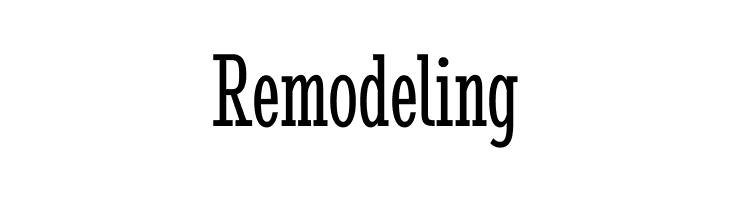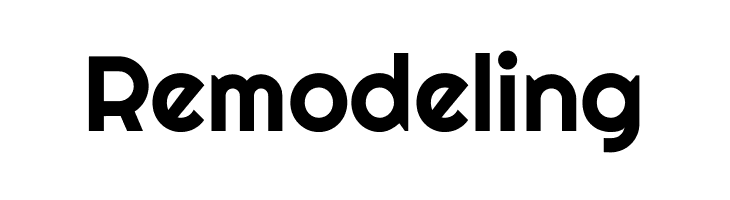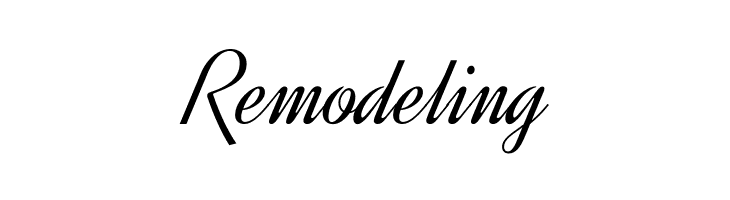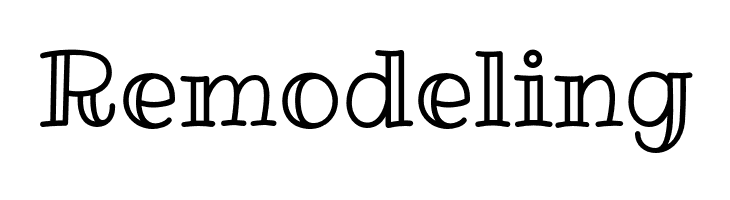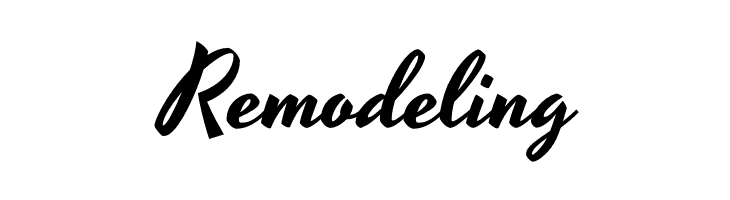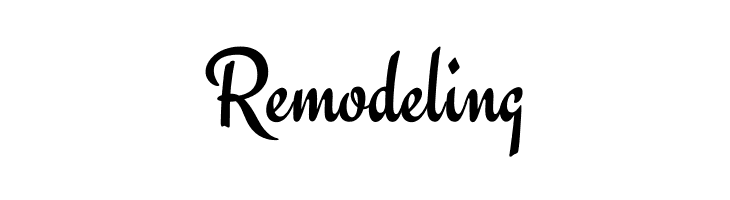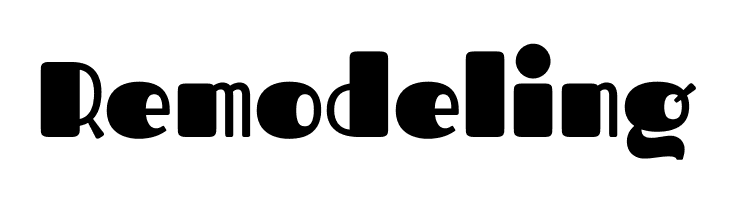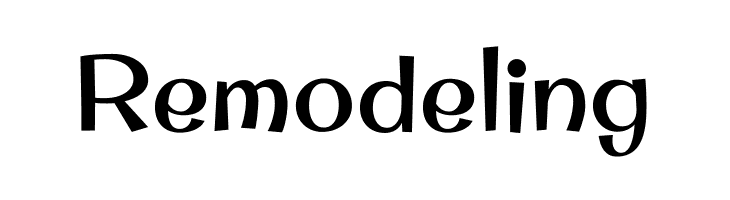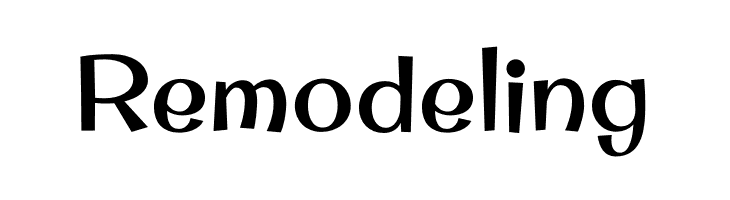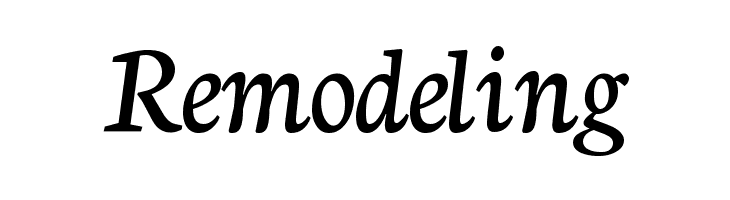
A highly condensed, clean, and organized font ideal for space-saving designs.
A highly condensed and elegant font with tall, narrow letterforms and minimal contrast.
A modern, geometric font with rounded edges and uniform stroke width.
An elegant and fluid cursive font with dynamic stroke variations.
An elegant, flowing script font with smooth, cursive letterforms.
A playful, whimsical serif font with bold, rounded serifs and hand-drawn appeal.
A vintage, cursive script font with a bold, flowing style.
A dynamic and elegant script font with flowing curves and fluid strokes.
A dynamic and elegant script font with fluid strokes and harmonious flow.
A bold, playful font with geometric and rounded elements, perfect for decorative use.
A bold, retro-inspired font with geometric and playful elements.
A playful and dynamic font with bold, curved letterforms.
A playful and dynamic font with bold, irregular letterforms and a whimsical style.
A modern cursive font with elegant, flowing lines and a slight slant.
A classic, calligraphic serif font with elegant curves and sharp serifs.
An elegant and flowing italic font with moderate contrast and graceful curves.
A classic calligraphic font with elegant, flowing lines and high contrast.
A medieval-inspired font with sharp angles and smooth curves, exuding classic elegance.
A classic, medieval-style font with rounded characters and pointed serifs.
A vintage typewriter-style font with a monospaced, slab serif design and a slightly distressed look.
A graceful and flowing script font with elegant, connected characters.
A bold, angular font with sharp edges and a dynamic style.
A modern, ultra-expanded font with a geometric and clean design.
A futuristic, geometric font with bold, angular letterforms and rounded edges.
A bold slab serif font with a modern and dynamic style.
A bold, wide font with a modern and impactful design.